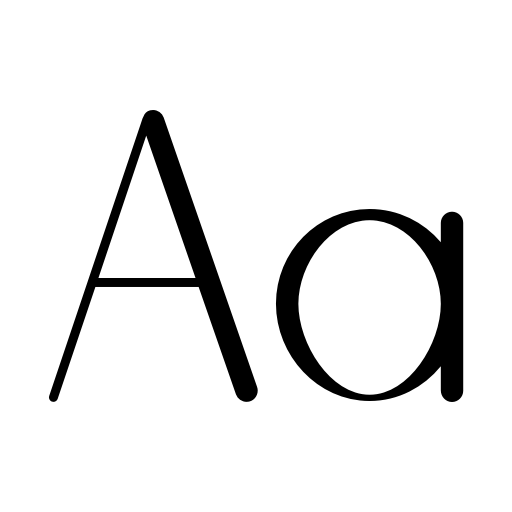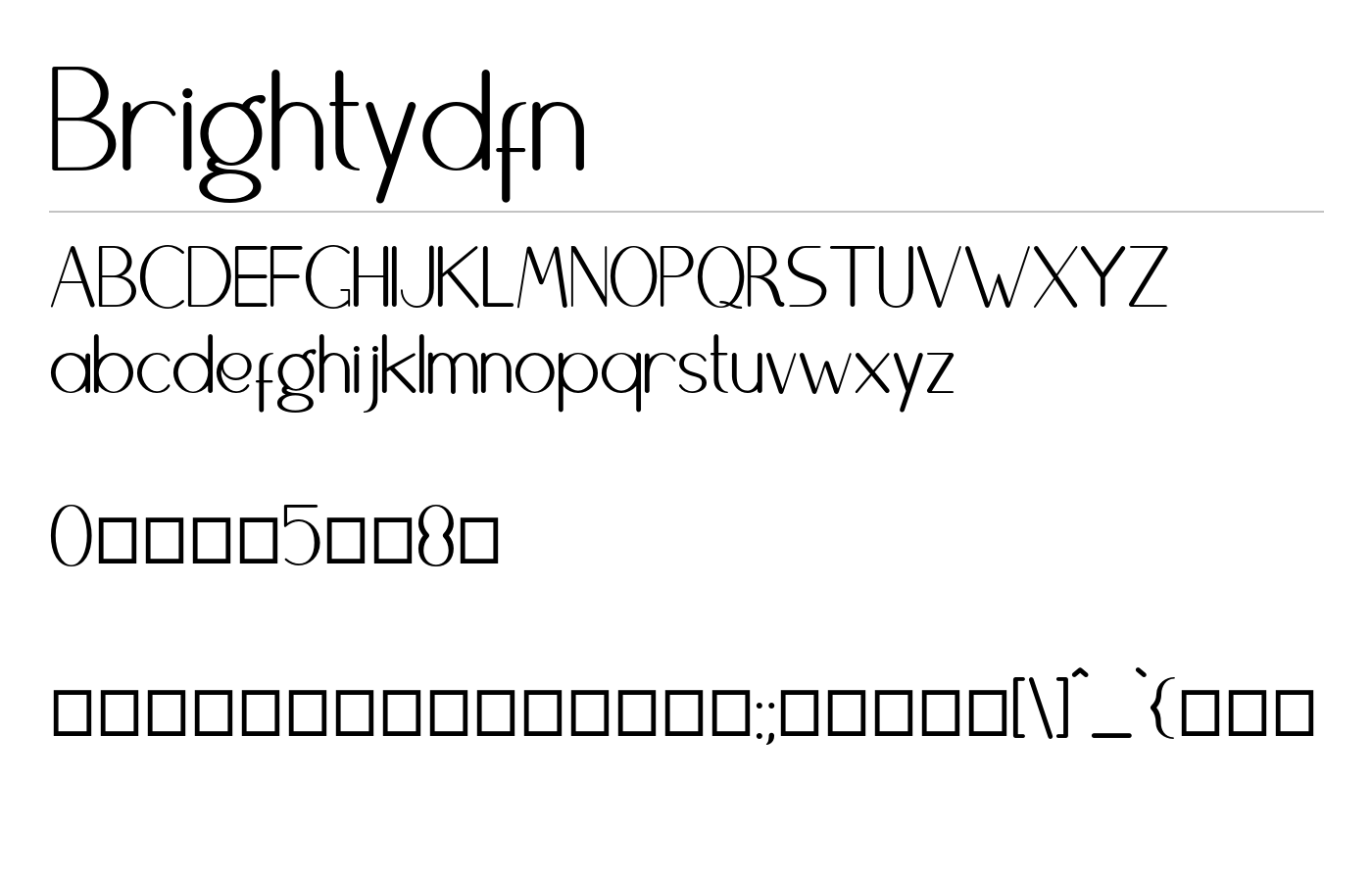
Brightydfn is a slender, sans serif typeface with a modern and delicate feel, featuring tall, narrow letterforms with elegant strokes and subtle variations that create a refined, airy appearance. Its unique and slightly quirky character shapes make it ideal for stylish headlines, branding, and creative editorial use where a contemporary yet approachable tone is desired. This font works well in fashion, luxury, and artistic projects that seek to convey sophistication with a fresh, distinctive edge.
Brightydfn Font